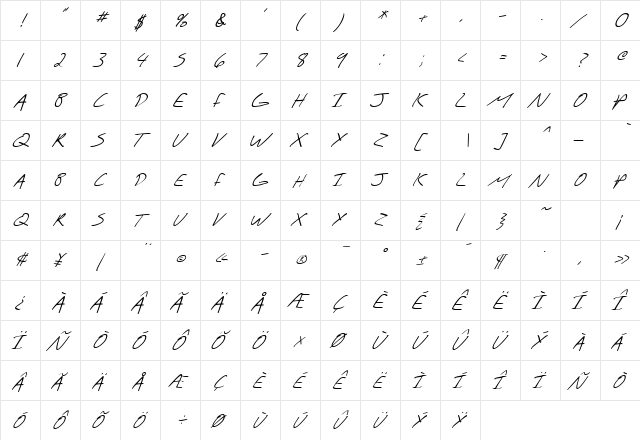
SF Scribbled Sans SC Italic
Design Context for SF Scribbled Sans SC Typeface
SF Scribbled Sans SC is a composed and adaptable typeface that performs quietly and consistently across a wide range of design contexts. The slanted form adds forward momentum and visual energy.
Pro Tip: Try SF Scribbled Sans SC for annotation and caption copy alongside an upright companion — the contrast in angle creates a dynamic but ordered typographic system.